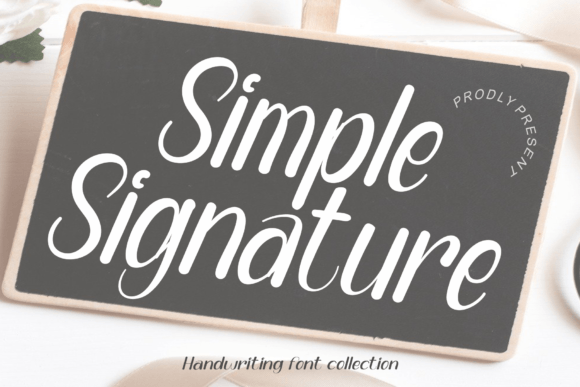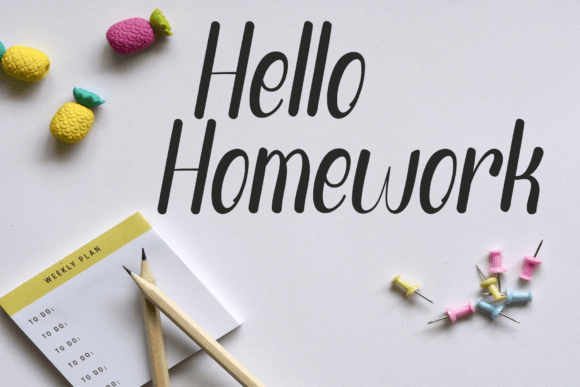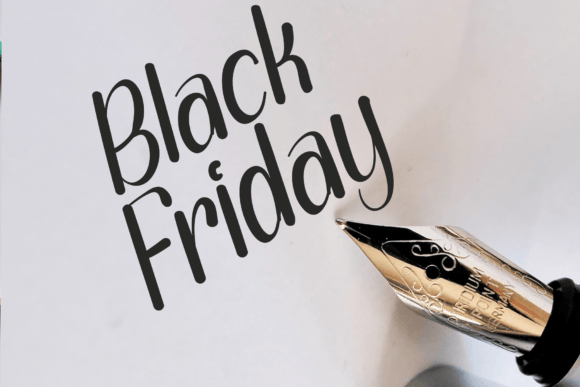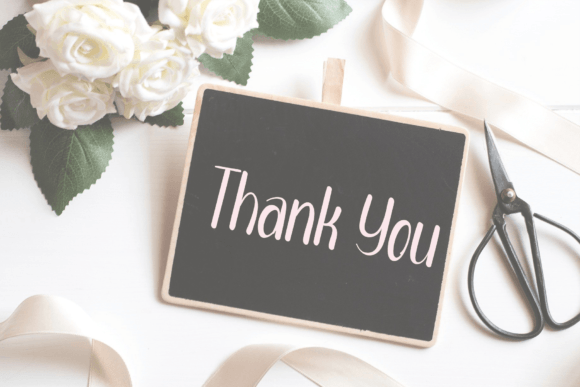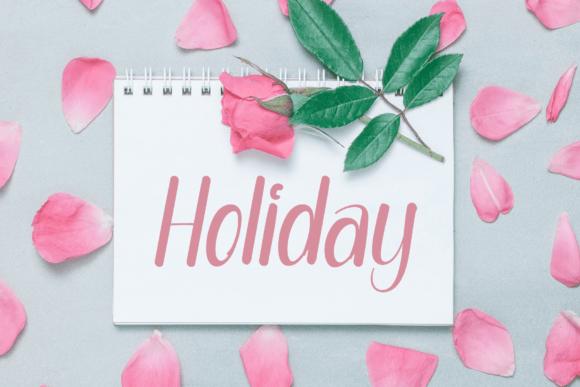
Simple Signature Font
About Simple Signature Font
Simple Signature is a magical script font that has been meticulously crafted with a touch of elegance. Whether you’re seeking fonts for Instagram posts or calligraphy scripts for your DIY projects, Simple Signature possesses the enchanting ability to transform any creative idea into a true piece of art.
The magical quality of Simple Signature lies in its script design, which adds a sense of whimsy and charm to your text. The careful attention to detail in crafting each letter ensures a seamless and elegant flow, making the font a captivating choice for a variety of applications.
For Instagram, Simple Signature brings a touch of sophistication to your posts. The script font enhances the visual appeal of your captions, quotes, or promotional content, creating a cohesive and stylish look that stands out on social media platforms.
In the realm of calligraphy scripts, Simple Signature shines as a versatile and artistic choice. Whether you’re working on DIY projects such as invitations, greeting cards, or personalized gifts, the font’s magical and elegant touch elevates your creations, turning them into genuine works of art.
The elegance of Simple Signature extends to its adaptability in various creative endeavors. From branding materials to digital designs, the font adds a refined and magical quality that captures attention and leaves a lasting impression.
In summary, Simple Signature is more than just a font; it’s a magical script that infuses a touch of elegance into your creative projects. Whether you’re enhancing your Instagram posts or adding a sophisticated flair to DIY endeavors, Simple Signature stands out as a captivating and artistic choice. Embrace the magic of Simple Signature to turn your creative ideas into true pieces of art that captivate and enchant your audience.